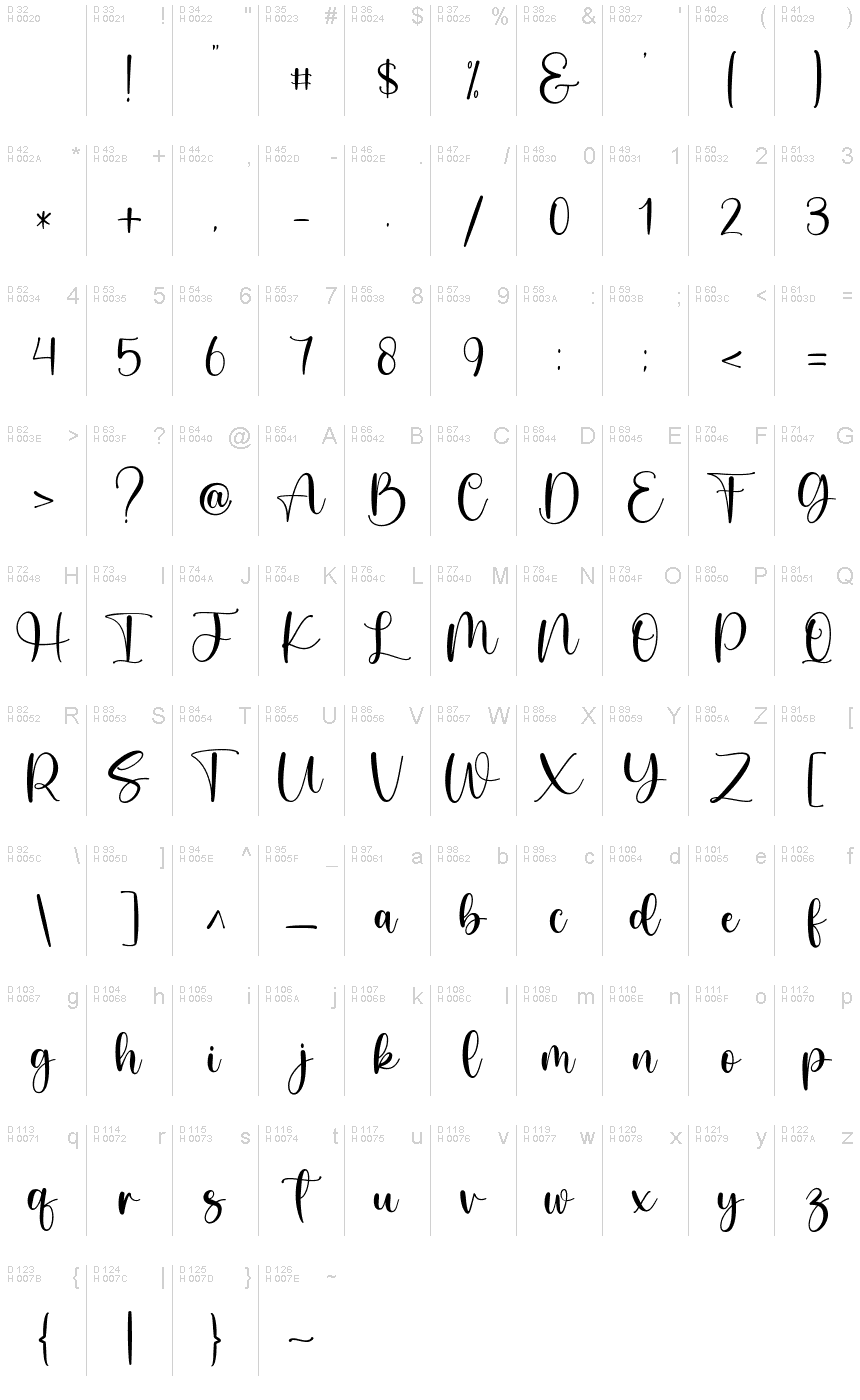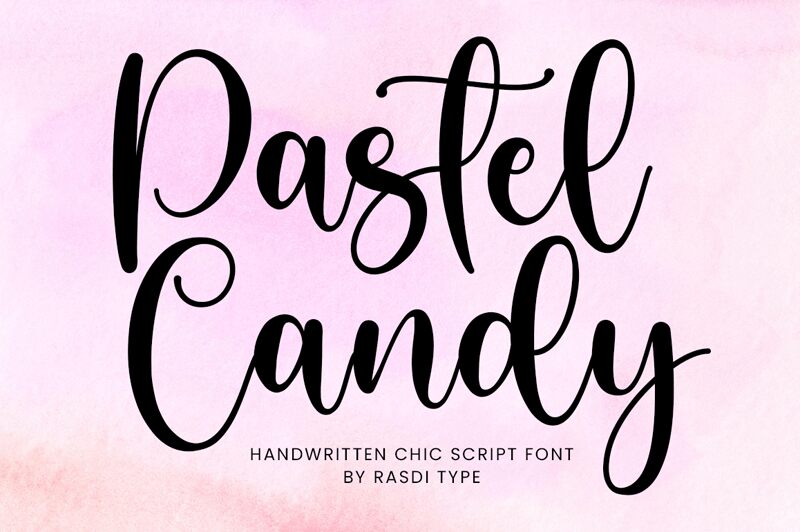
Pastel Candy
Pastel Candy, a mesmerizing calligraphy font crafted by the talented Ramli Setiadi, adds an enchanting touch to any project. Its graceful strokes and elegant curves evoke a sense of whimsy and sophistication, making it perfect for wedding invitations, greeting cards, and feminine branding. With its playful yet refined demeanor, this font effortlessly transports your designs into a realm of sweetness and grace. Embrace the charm of Pastel Candy and elevate your projects with its distinctive appeal.